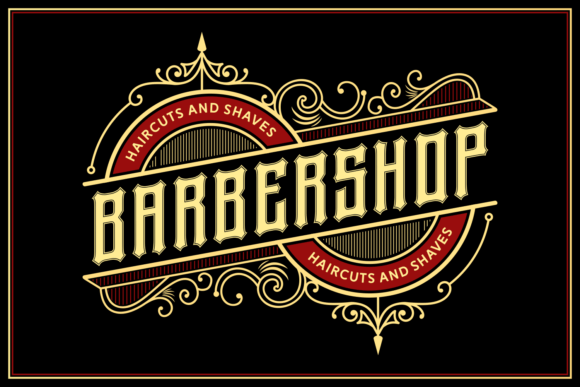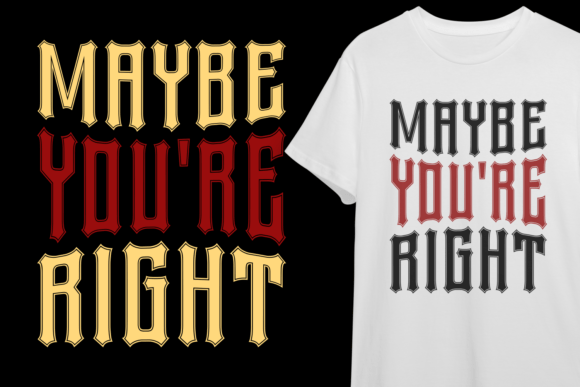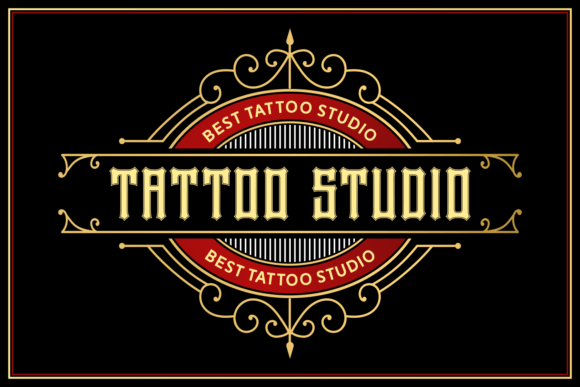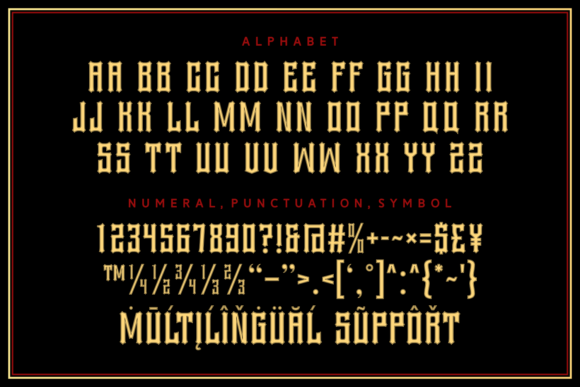
Introduction to Perfecto Enough Font
Remember that moment when you stumbled upon the perfect font, and your entire design project came together in an instant? For designers, finding the right typeface can be the difference between a decent creation and a truly exceptional one. That’s where the Perfecto Enough Font comes in – a remarkable tattoo-style blackletter font that’s sure to elevate any project.
With its classic, vintage look, the Perfecto Enough Font is a design resource that’s hard to resist. Whether you’re working on a logo, poster, banner, or advertisement, this captivating typeface is sure to grab attention. And the best part? It’s free to download, making it a valuable asset for designers of all levels.
From product packaging to t-shirts, the Perfecto Enough Font is a versatile choice that’s perfect for any creative project. Its high-quality design and transparent background make it easy to integrate into your design, allowing you to focus on bringing your vision to life.
Key Features of Perfecto Enough Font
- High-quality font design ideal for creative projects, offering a unique and stylish aesthetic.
- Features a transparent background, allowing for seamless integration into custom designs and backgrounds.
- Perfect for use in digital and print projects, including posters, flyers, brochures, and more.
Honest Review: Perfecto Enough Font
As a designer, I’m always on the lookout for high-quality design resources that can elevate my creative projects. Recently, I had the chance to test the Perfecto Enough Font, and I’m excited to share my honest review with you.
- The Perfecto Enough Font offers a beautiful, modern aesthetic that’s perfect for a wide range of creative projects.
- The font is highly legible, even at smaller sizes, making it ideal for use in digital designs.
- The transparent background option is a nice touch, allowing for seamless integration into designs with complex backgrounds.
While the Perfecto Enough Font is a solid choice, I did encounter a few limitations during my testing:
- The font doesn’t offer a wide range of weights or styles, which may limit its versatility in certain design applications.
Overall, I was pleasantly surprised by the Perfecto Enough Font’s quality and versatility. While it may not be the perfect choice for every design project, it’s definitely a solid addition to any designer’s toolkit.
Perfecto Enough Font is suitable for various design projects, including social media graphics, flyers, posters, business cards, and presentations. Its high-quality design makes it an excellent choice for creative projects that require a professional look.